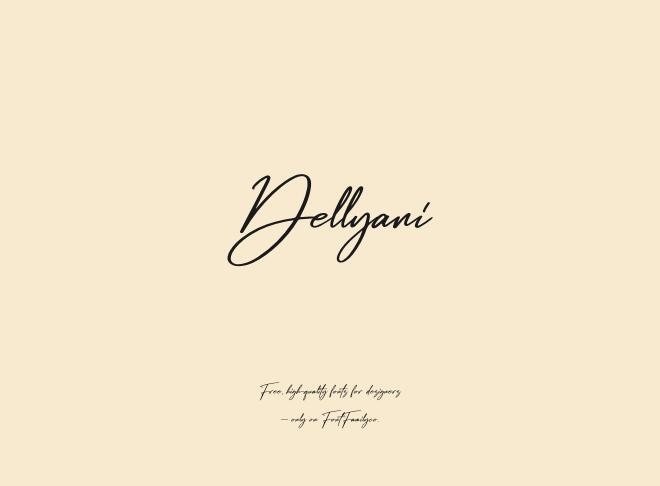
Dellyani Font
Dellyani Font is a modern, playful, and handwritten script font crafted by Creative Fabrica Fonts. It's characterized by its casual yet elegant style, making it an excellent choice for a variety of design projects. Dellyani Font is ideally suited for logos, branding, social media posts, and other creative design needs. It's a great alternative to more traditional script fonts, offering a unique blend of style and readability. The font's playful nature makes it stand out, helping to create memorable designs. It's free to download for personal use, making it a great choice for designers and creatives looking to add a fresh, modern touch to their work.